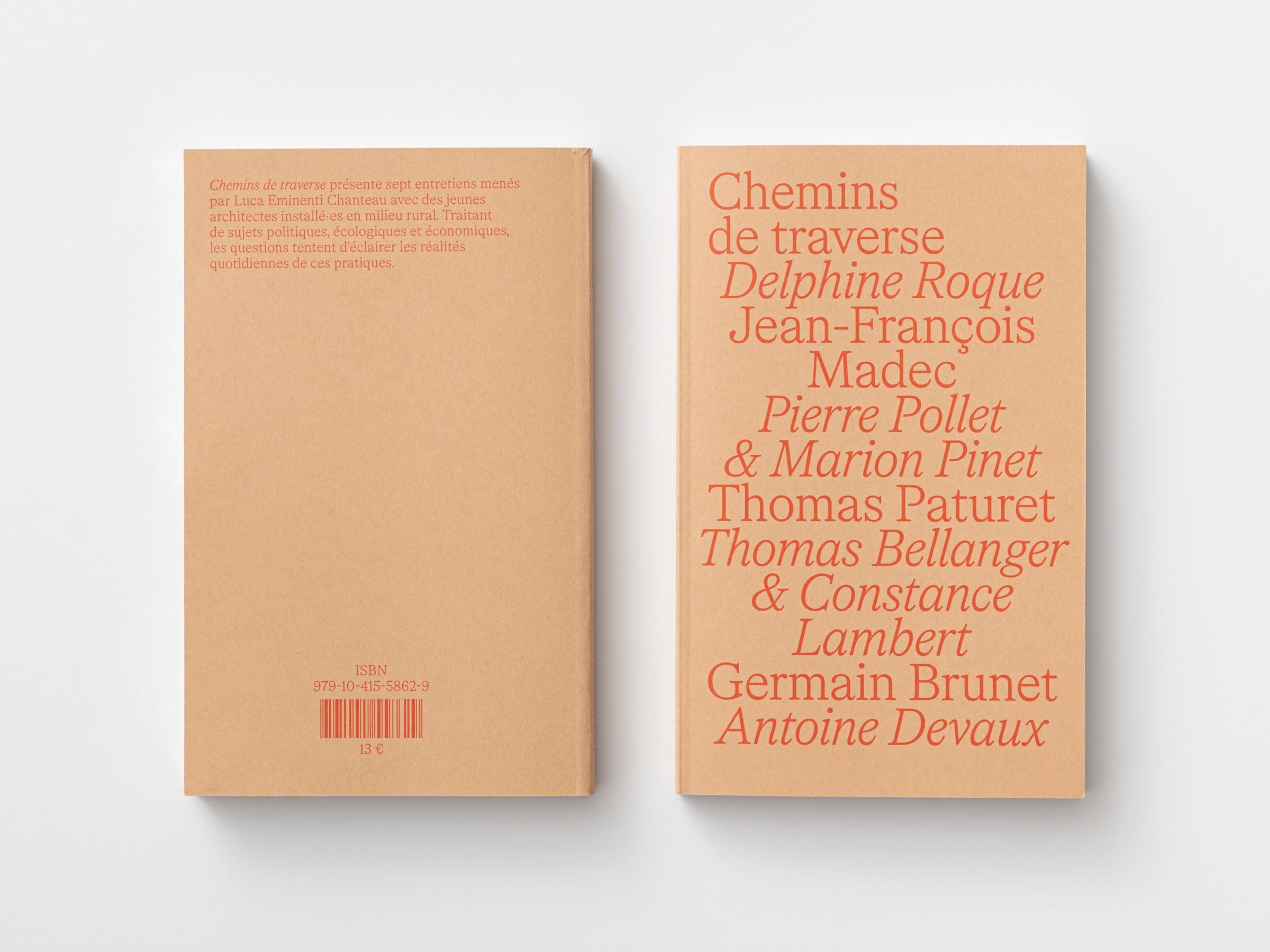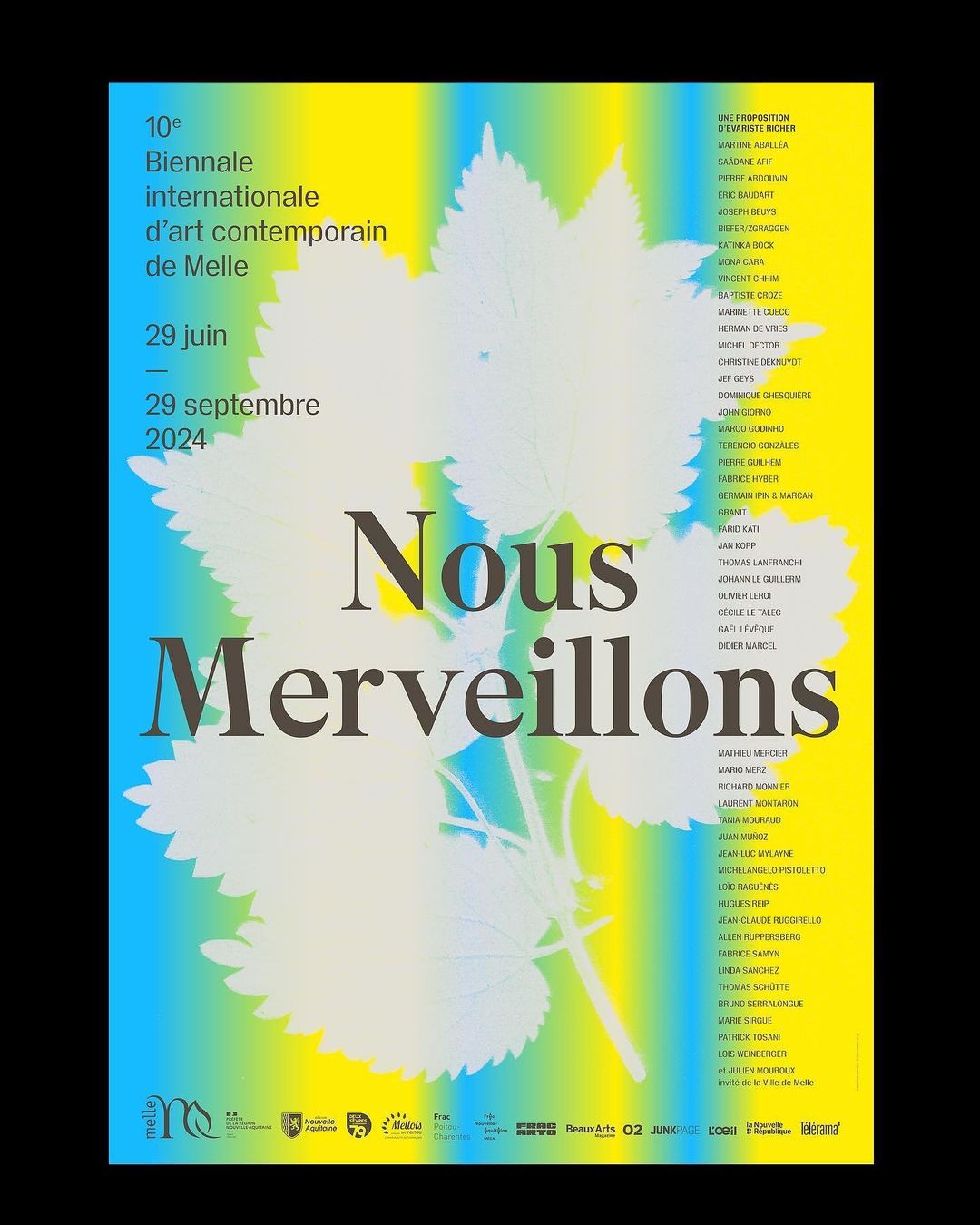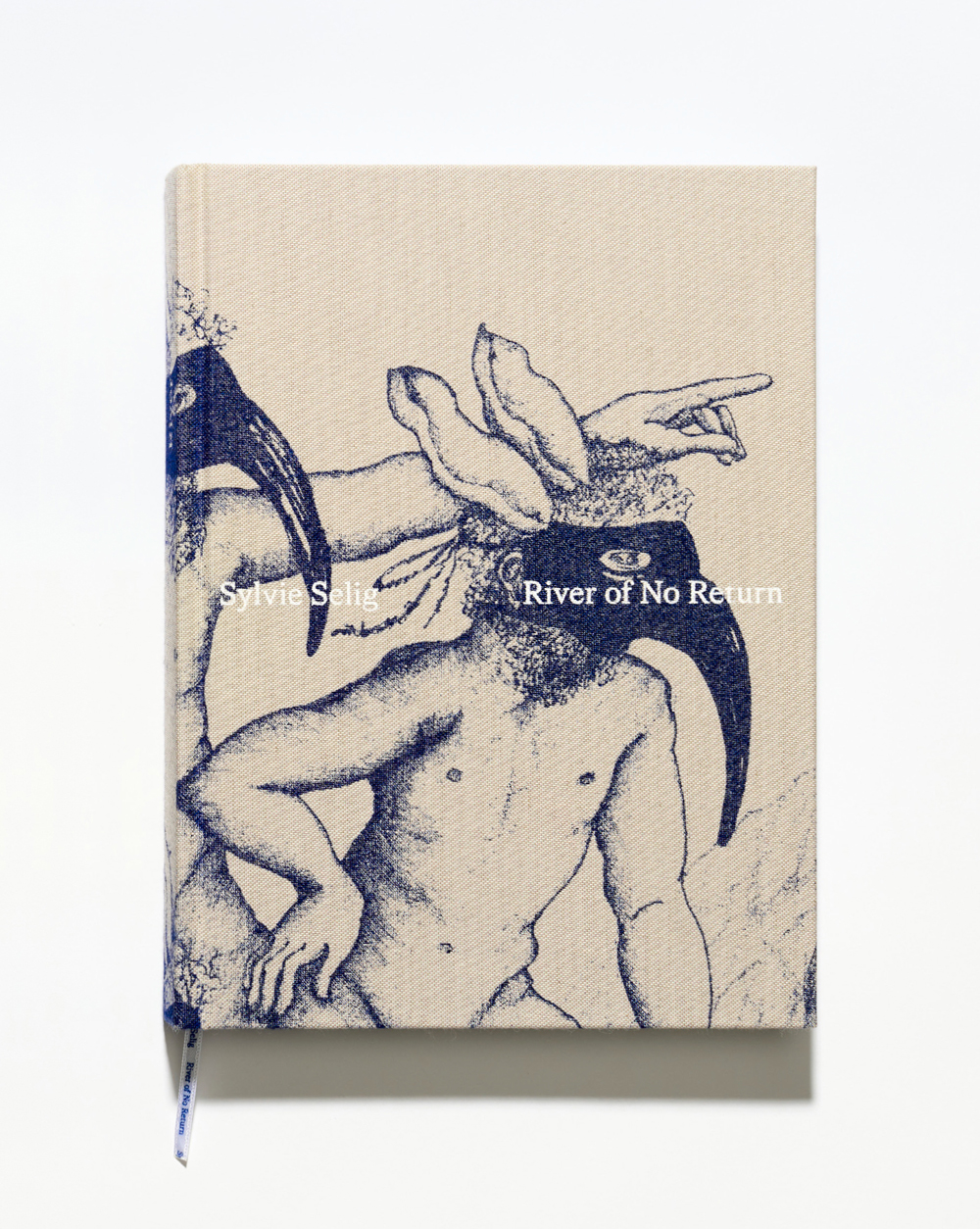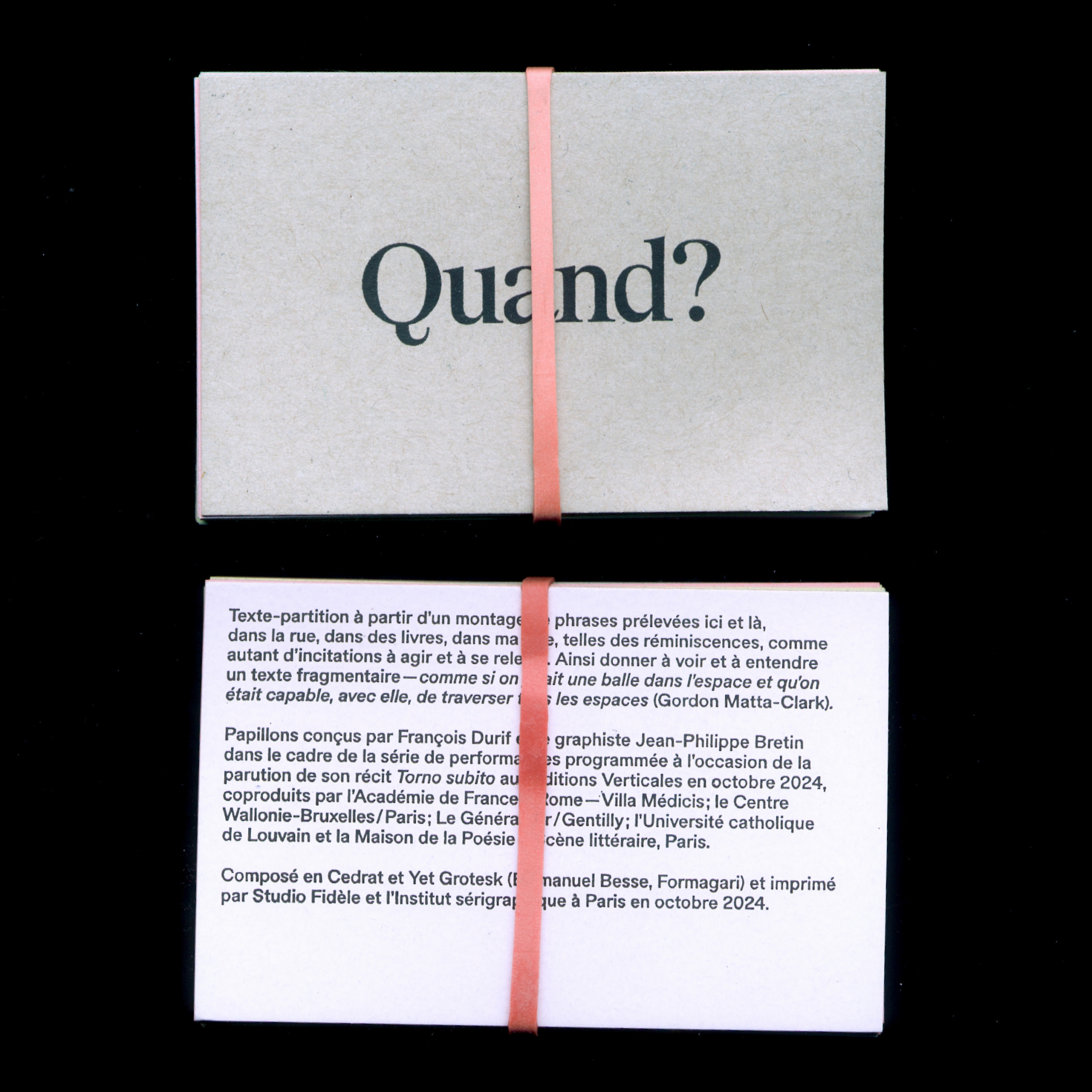
Cedrat
3 optical sizes, each with 12 styles & 6 weights
From Thin to Bold, with italics
About Cedrat
Cedrat is a serif typeface in three optical sizes, each available in six weights, in both roman and italic. Cedrat Display, the titling variant, is contrasted and elegant; Cedrat Standard, the intermediate typeface, works in both large and small sizes; and finally, Cedrat Text, is meant to be more comfortable for reading. Each variant includes a complete character set with 1030 glyphs, covering a wide variety of languages and enabling advanced text composition with its sets of symbols, small capitals, superscript letters, etc.
The fruits and plants we know and appreciate are often the result of crossbreeding. Families and subfamilies that resemble each other closely or distantly and share a common biological skeleton. Like the category of fruits from which it takes its name, the Cedrat typographic collection consists of hybrids with familiar traits but whose uniqueness can also be expressed. Despite their differences, the glyphs and variants are harmoniously united.
Cedrat is initially based on the typefaces called “Hollandaises” from the Berthier & Durey foundry, visible in the 1895 “Spécimen de caractères”: a “family” with thick strokes and high contrast, offered in a single weight in roman and italic. Typical of typefaces from this technical and cultural transitional period between the 19th and 20th centuries, the forms of the “Hollandaises” are hybrid: the axis of contrast varies according to the letters (h, o, a have a straight axis while b, d, p, q, e have a slanted axis), some pleasing inconsistencies create identity. Cedrat retains this free spirit but has been refined to be more coherent and functional.
In order to reconcile the source that was clearly intended for display and the desire to have a typeface that could function in text, the design space was divided into three optical sizes. Each subfamily is broken down into six weights to cover all needs. Finally, the italic design diverges from the source, drawing from the likes of Times and ITC Caslon 223 instead of using Berthier & Durey’s mechanical slant of the roman, which lacked true cursive characteristics.
Emmanuel Besse
Cedrat Display
Cedrat Standard
Cedrat Text